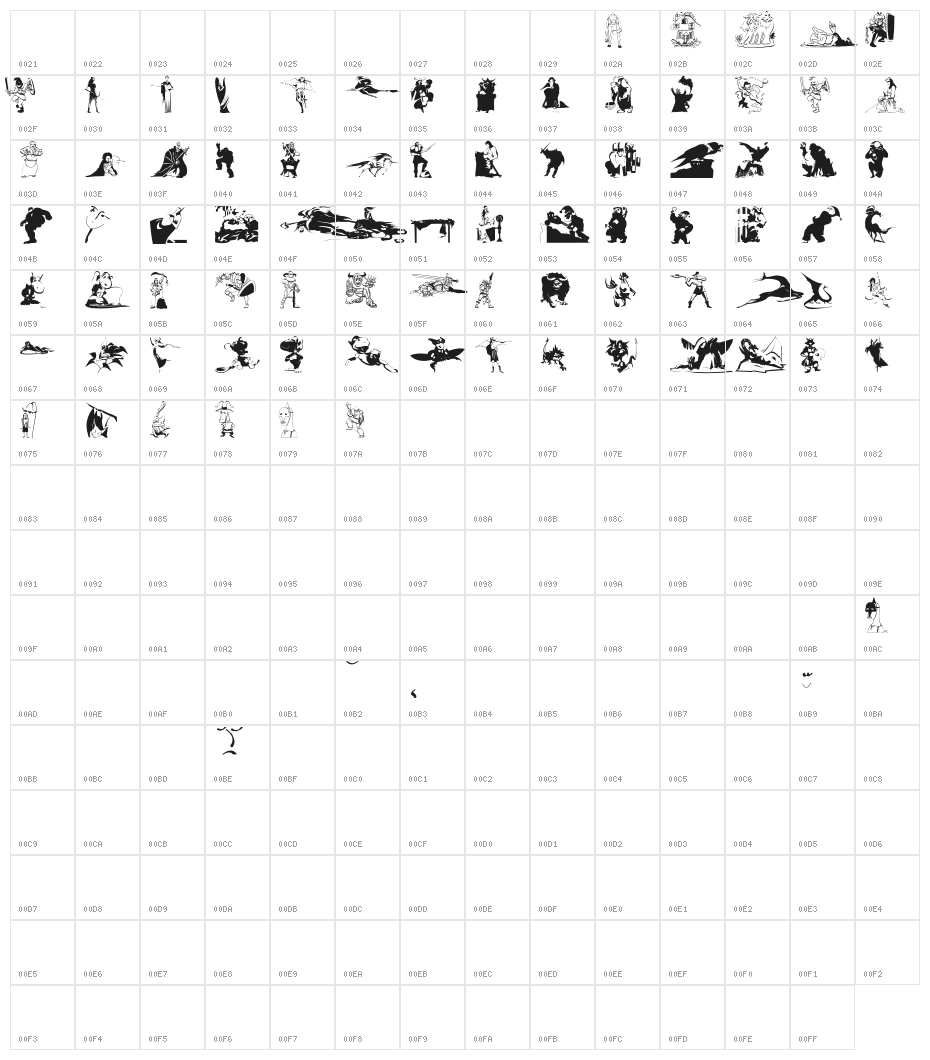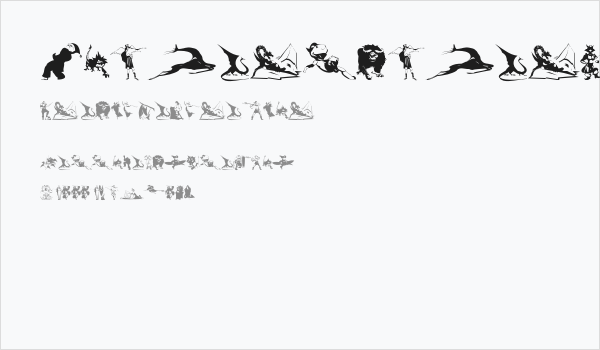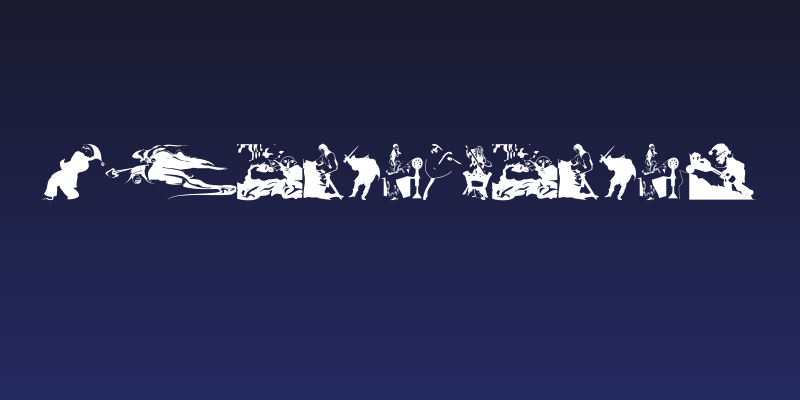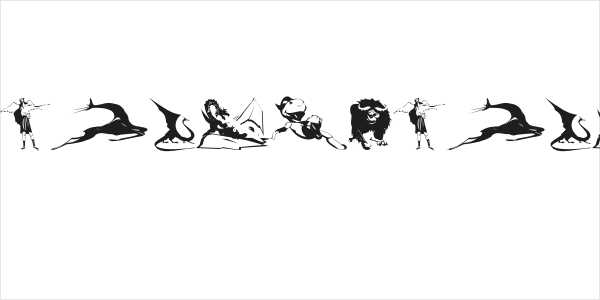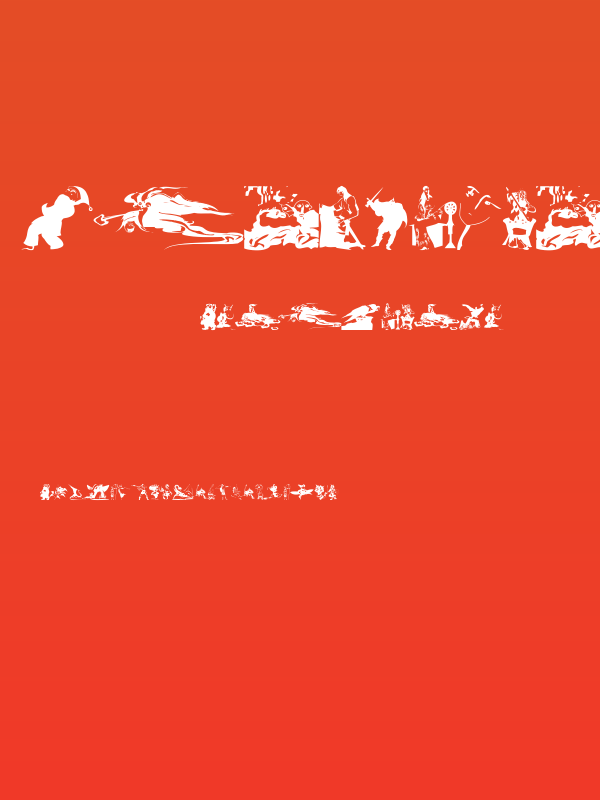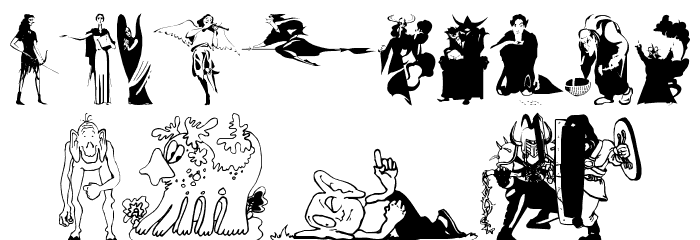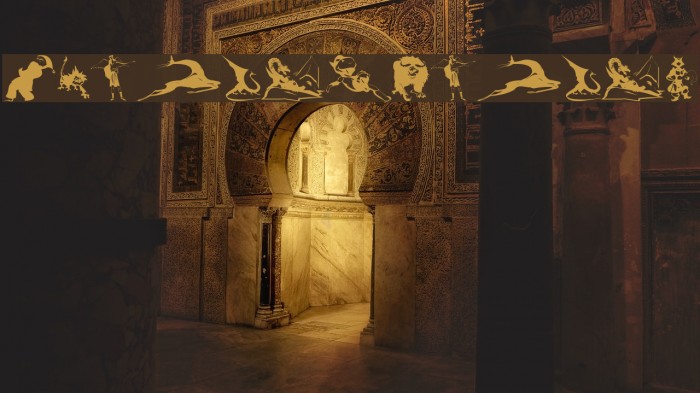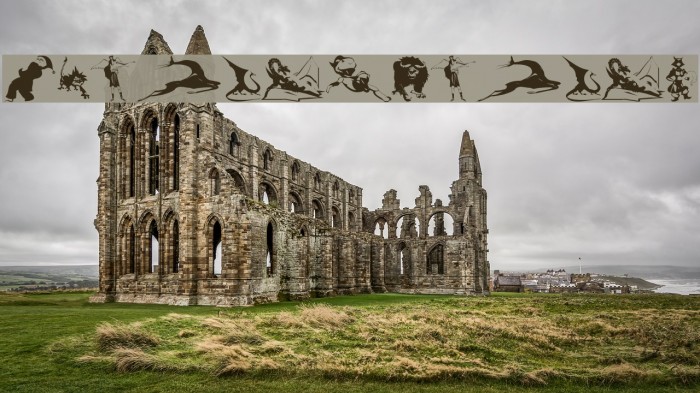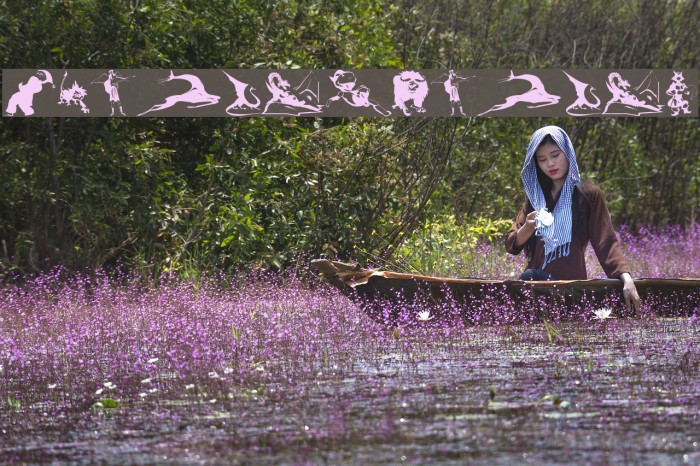
Wonderlanders Font
Wonderlanders Description
A highly decorative and illustrative set of characters, each glyph is represented by a unique, whimsical silhouette of a fantasy or storybook figure, blending letterforms with detailed character art.
| Overall Style | Whimsical, Fantasy, Decorative |
| Use Case | Logos, Headlines, Posters, Book Covers |
| Proposed Projects | Children's books, fantasy game titles, storybook covers, themed event posters, creative branding. |